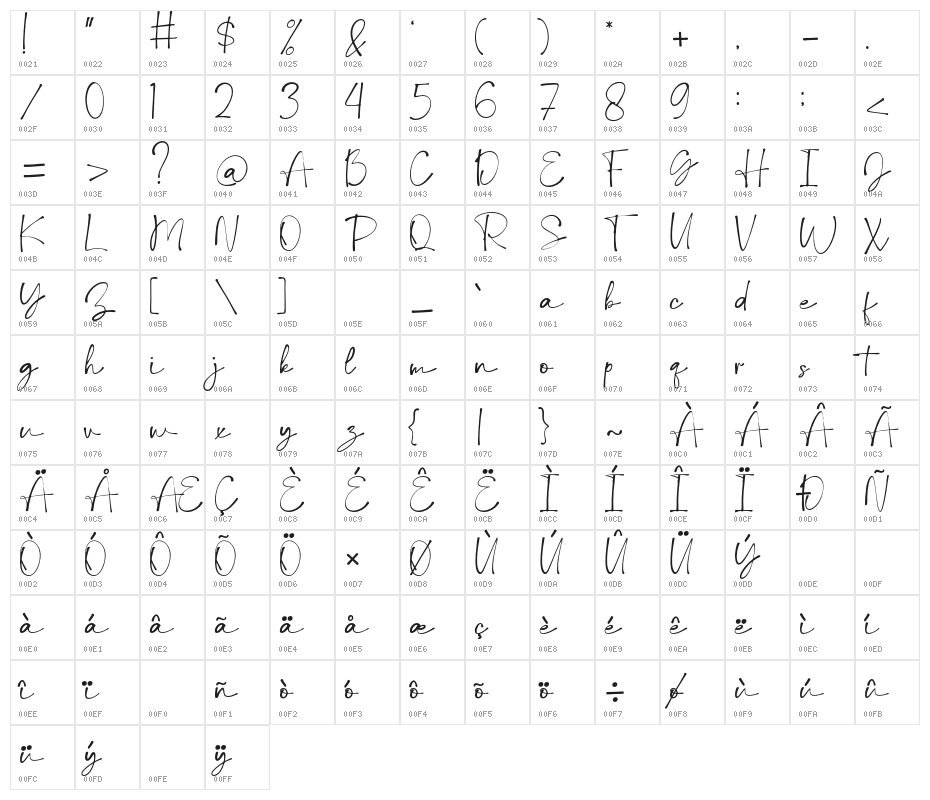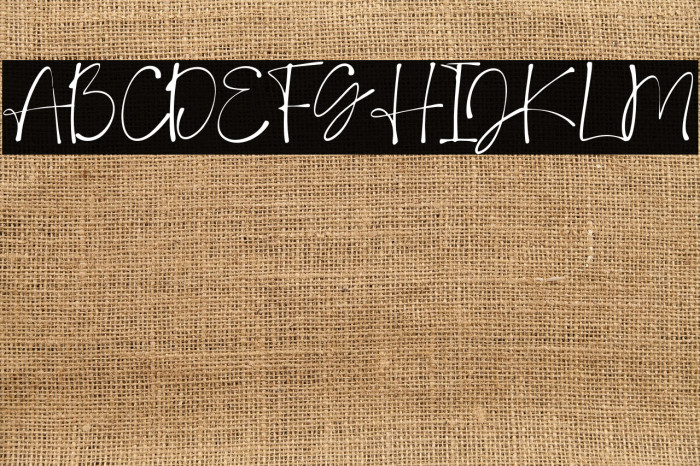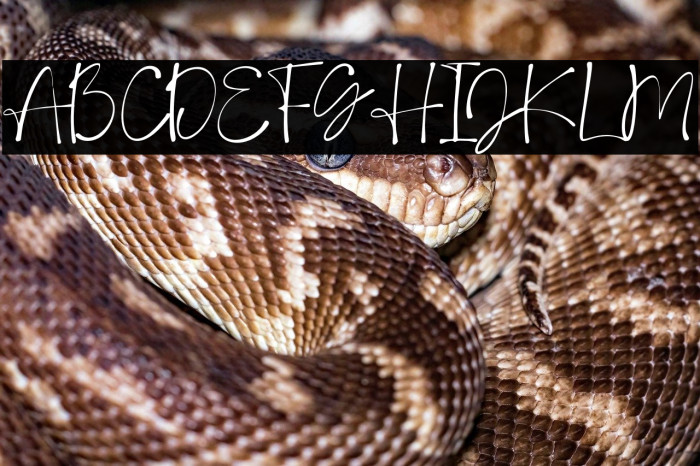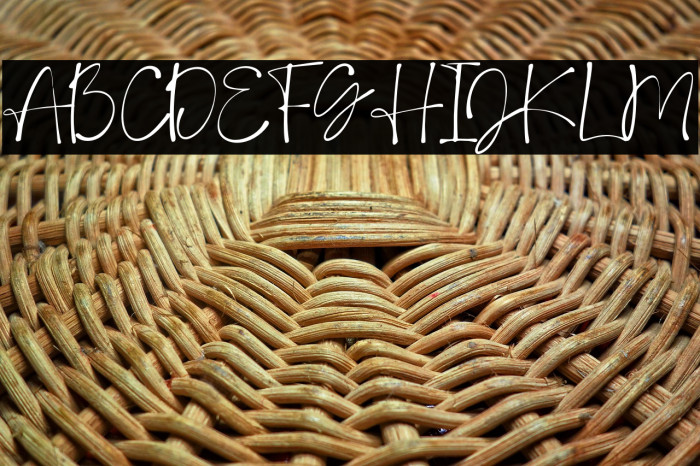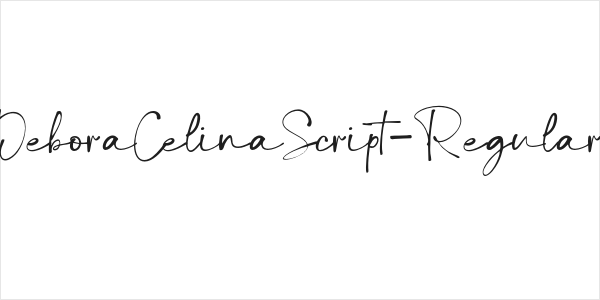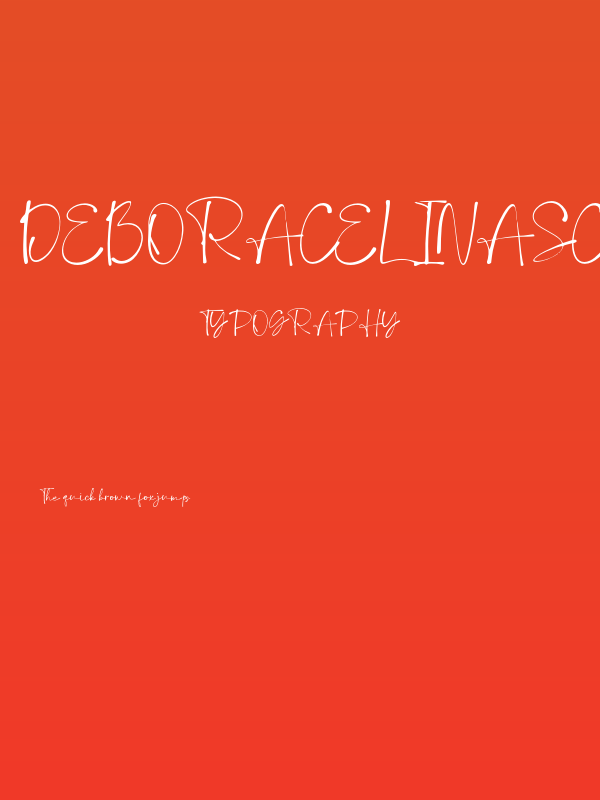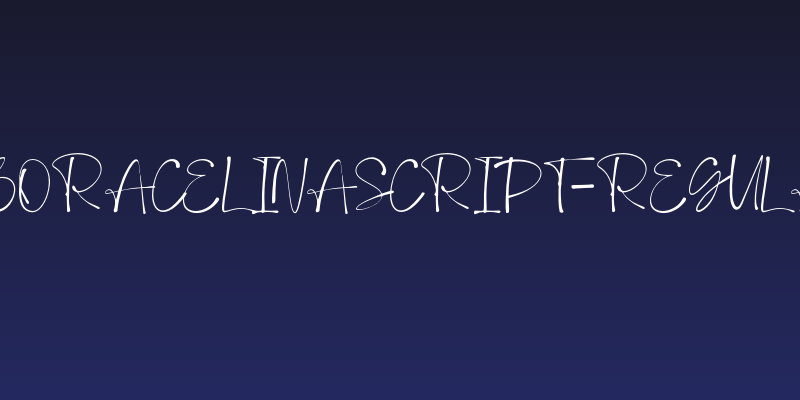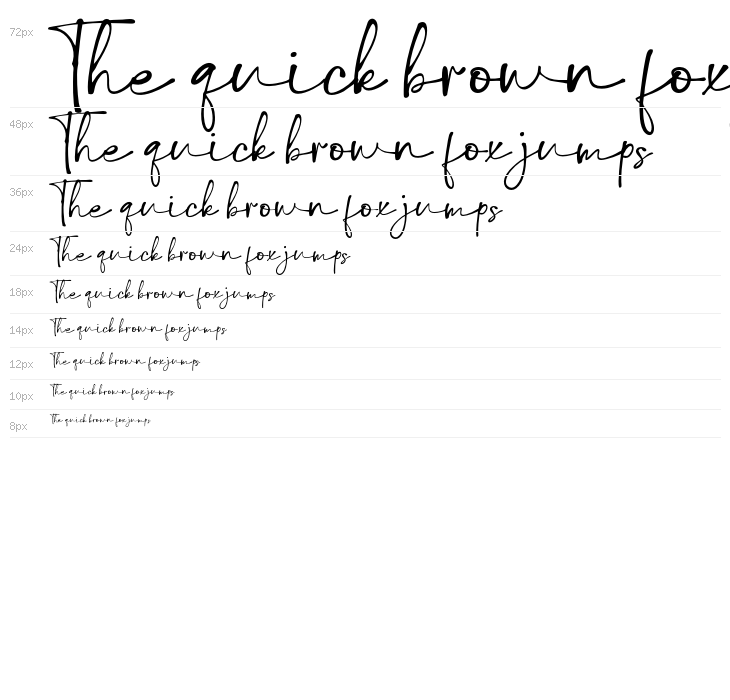
DeboraCelinaScript-Regular Font
DeboraCelinaScript-Regular Description
A playful, flowing handwritten script with tall ascenders, long descenders, and a casual, organic feel. The strokes are thin and slightly irregular, mimicking natural handwriting with connected and disconnected letterforms.
| Overall Style | Decorative, Casual, Organic |
| Use Case | Logos, Headlines, Invitations, Social media |
| Proposed Projects | Invitations, greeting cards, personal branding, quotes, social media graphics. |